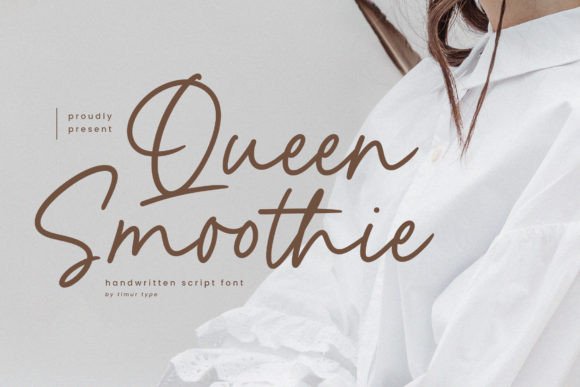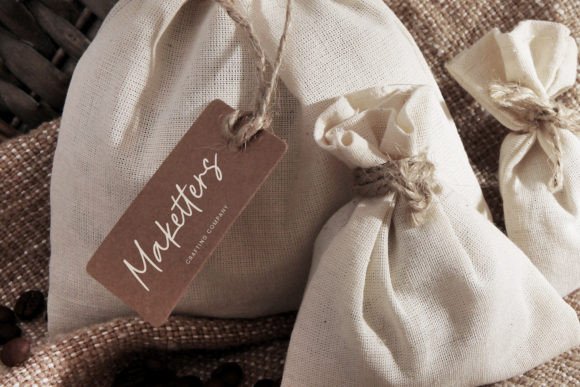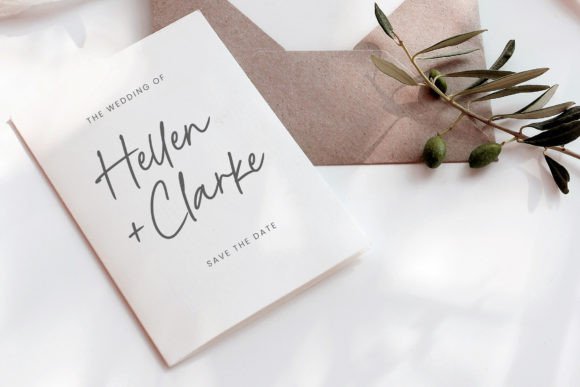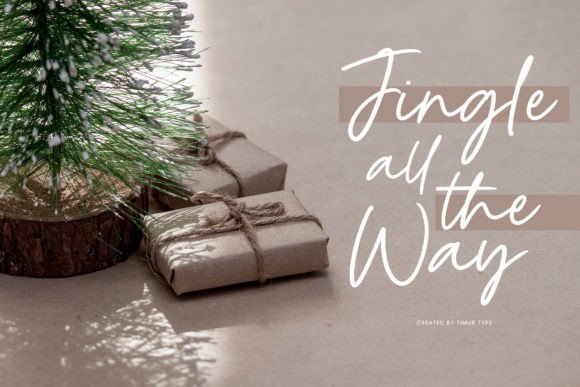
Queen Smoothie Font
About the Queen Smoothie Font
Introducing the Queen Smoothie Font, a beautifully crafted typeface designed to elevate your creative projects. Queen Smoothie is a magical script font carefully created with a touch of elegance. Whether you’re looking for fonts for Instagram or calligraphy scripts for DIY projects, this font will turn any creative idea into a true piece of art!
Queen Smoothie’s elegant, flowing forms are ideal for short headlines, branding elements like logos and taglines, and packaging design where a touch of luxury is desired. It also works well on invitations or short social media posts. However, its intricate details make it unsuitable for body text or longform content; readability suffers at smaller sizes.
Its playful yet sophisticated personality pairs well with clean sans-serif fonts like Montserrat or Lato for a balanced contrast. For a more luxurious feel, consider pairing it with a classic serif like Garamond or a geometric sans-serif like Futura. Avoid pairing it with other script fonts, as this can create visual clutter.
The overall mood is one of sophisticated playfulness, making it a good choice for brands targeting a young, affluent, and discerning audience. Think artisanal food products, boutique hotels, or high-end fashion accessories.
Queen Smoothie Font Usage Examples
Queen Smoothie Font Example